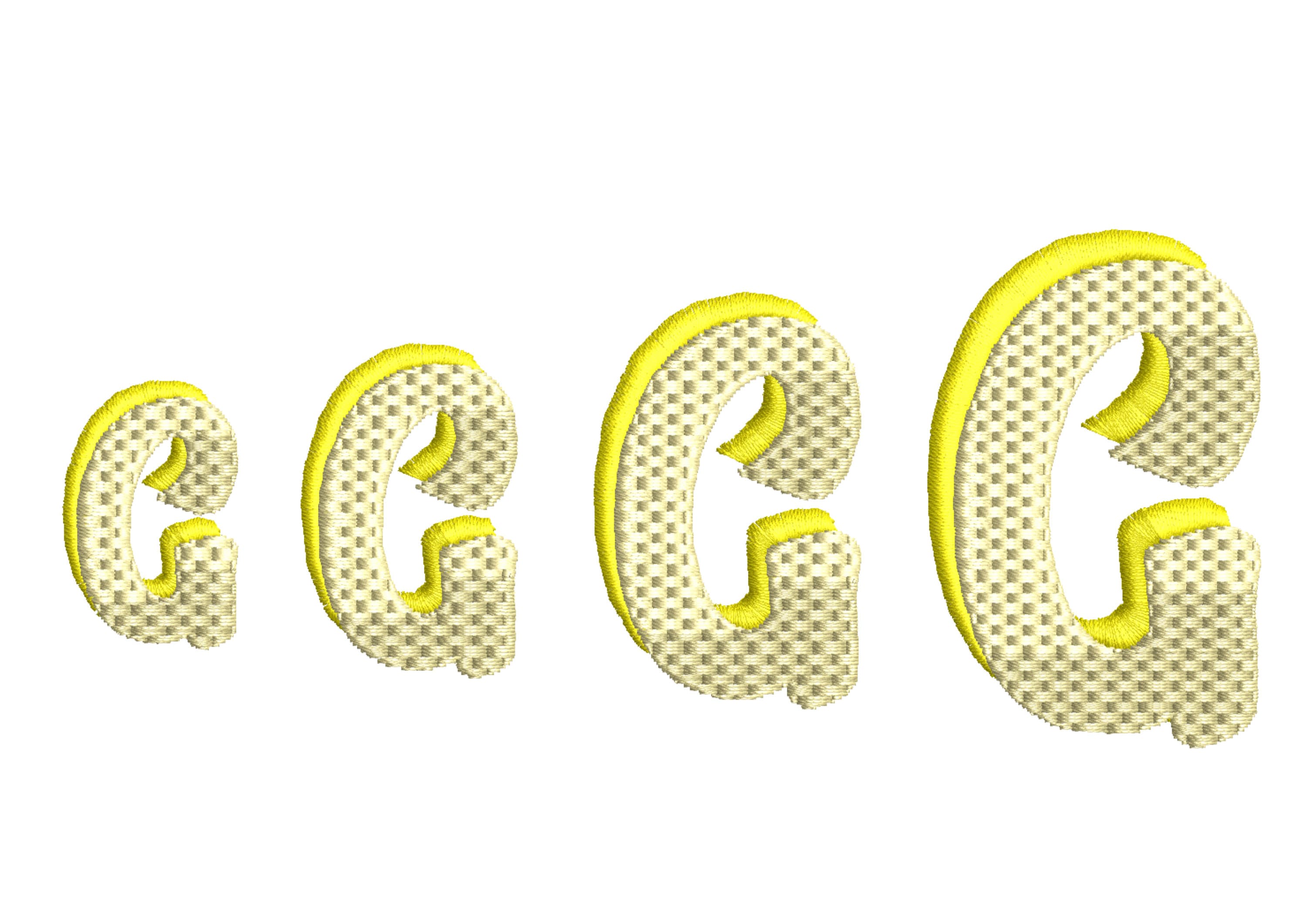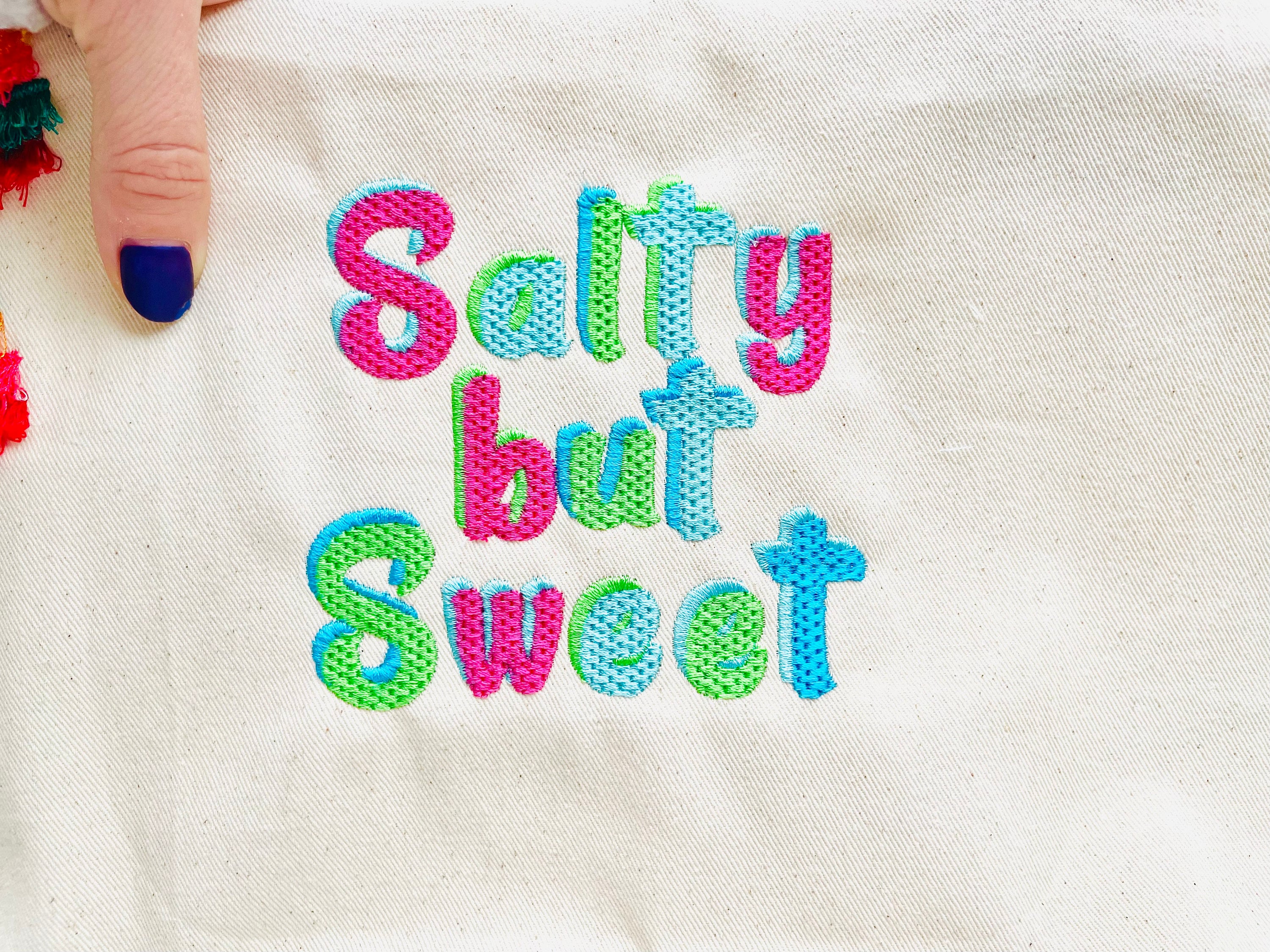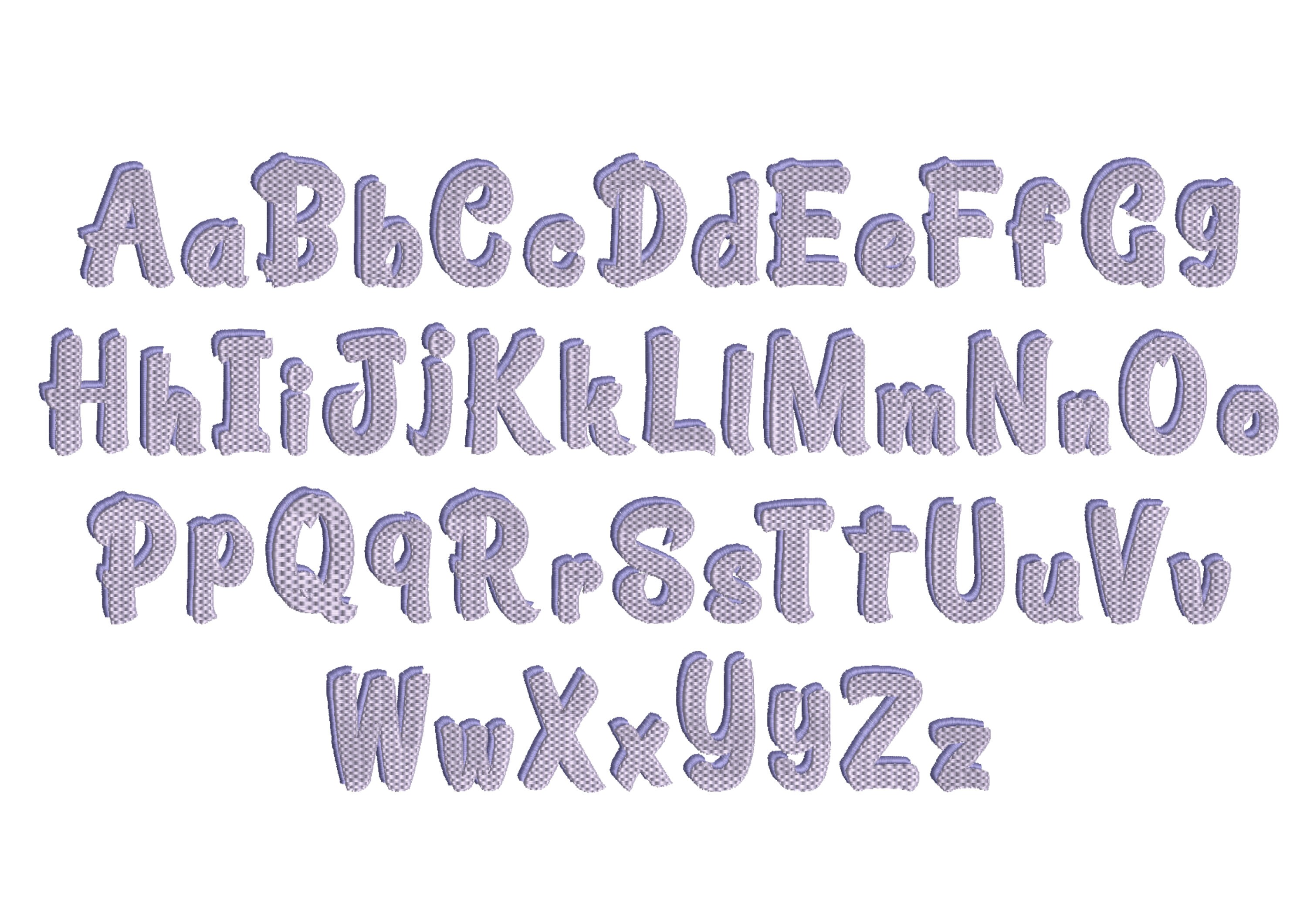
Waffle stitch with shadow handwritten font must have cursive Font alphabet machine embroidery designs sizes from 1 thru 2.2 inches, BX included
Uppercase and lowercase letters.